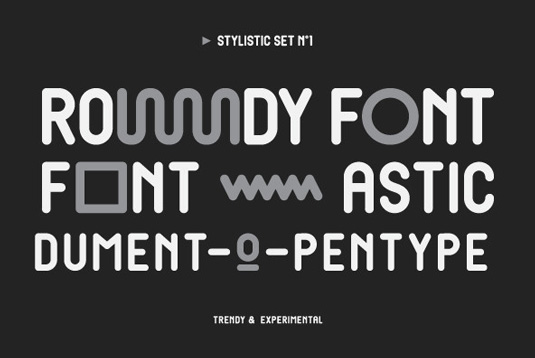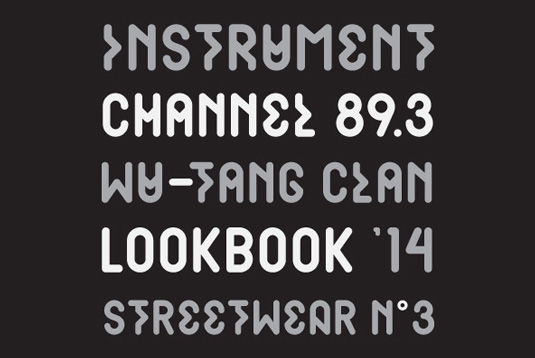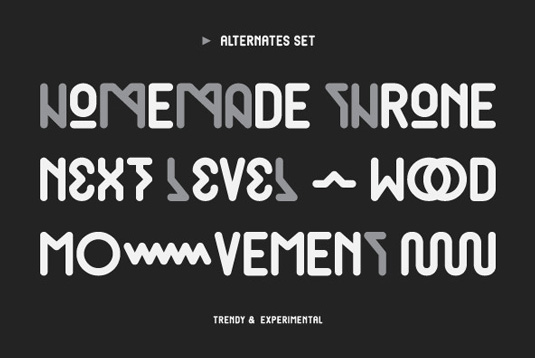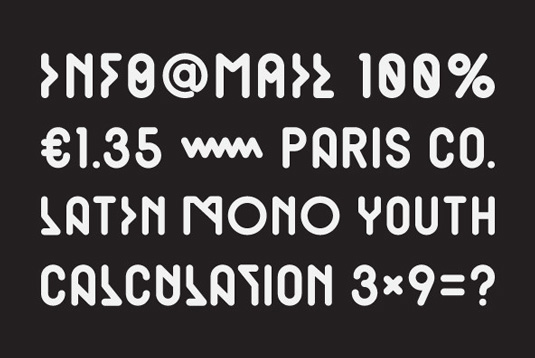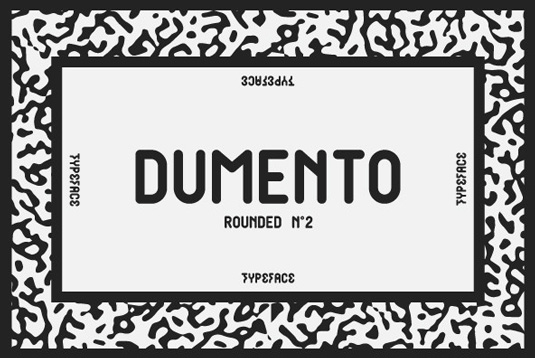
Font of the day: Dumento
Dumento by Frank Hemmekam
Type and graphic designer Frank Hemmekam is behind today's font of choice, Dumento. Available from YouWorkForThem, the design is described as "an uppercase experimental typeface inspired by the 17th century alchemy. This typeface, with its mysterious alchemic look, is perfect for being used in posters, headlines or any artwork."
Dumento is available in two different styles, one being an alchemic, experimental style, while the other is regular. Dumento is available to purchase from YouWorkForThem.